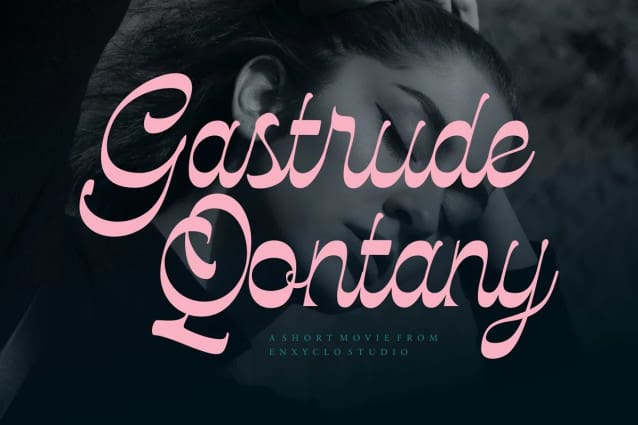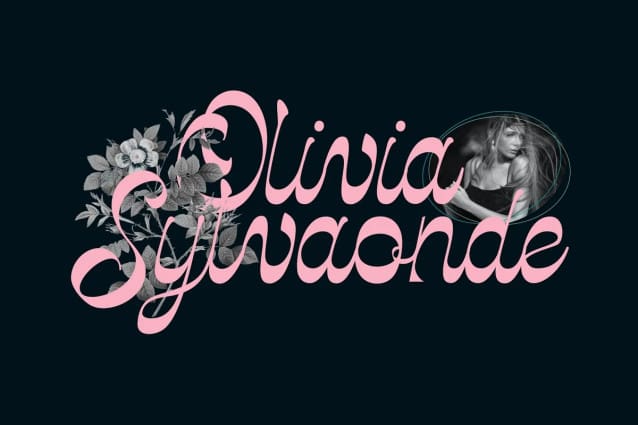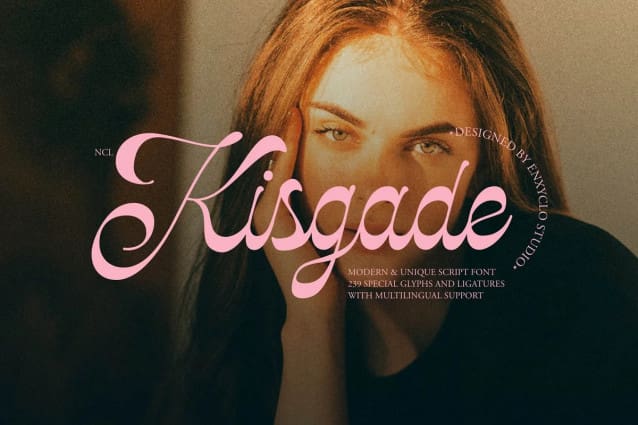
Kisgade Font
Kisgade Font, is a modern and elegant script font. Masterfully designed to become a true favorite, this font has the potential to bring each of your creative ideas to the highest level! It was purposely crafted to be used in large point sizes, although it doesn’t lose its magic in small point sizes.
Kisgade Font is perfect for wedding or romantic event, headline, billboard, magazines, website, titles, poster, branding, and logos. No matter the topic, this font will be an incredible asset to your fonts’ library, as it has the potential to elevate any creation. With this beautiful font, absolutely you can make your project stand out from the rest.